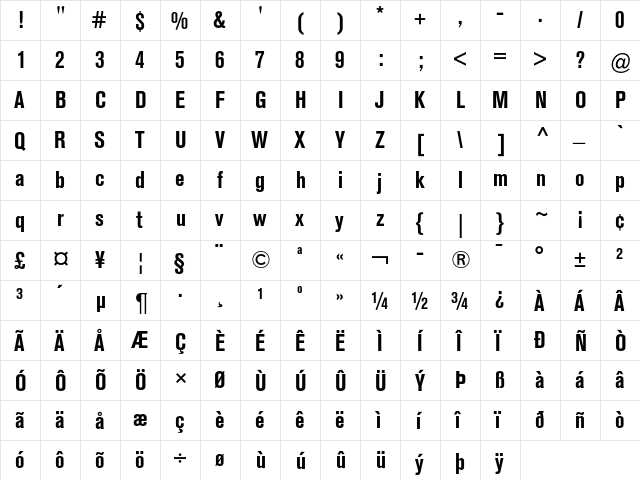
Berthold Akzidenz Grotesk Bold Condensed Font Preview
Design Context for Berthold Akzidenz Grotesk Typeface
Berthold Akzidenz Grotesk has the quiet confidence of well-executed sans-serif typography: versatile, unobtrusive, and dependable at any size. The heavy weight commands attention and anchors typographic hierarchies. Its narrow stance lets it pack a punch even in space-constrained designs.
A strong choice for UI design, app interfaces, bold signage, and corporate brand systems.
Font Pairing: Use Berthold Akzidenz Grotesk for headlines alongside a lighter-weight sans or serif for body copy to establish clear visual hierarchy.
Pro Tip: Try Berthold Akzidenz Grotesk in all-caps with moderate tracking for navigation and label copy — it performs well in systematic UI contexts.